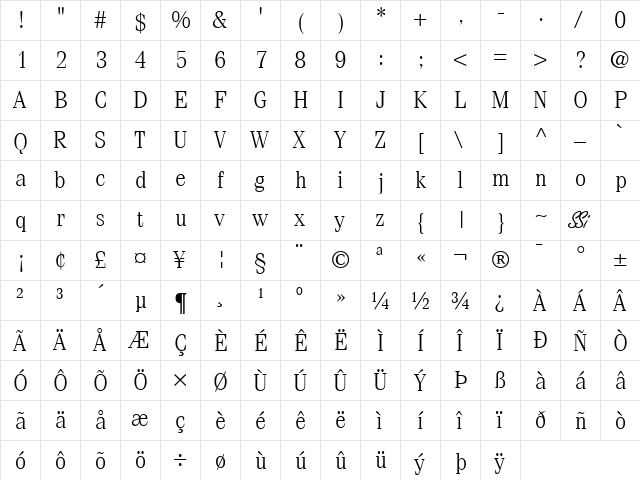
Compendium Light SSi Light
Design Context for Compendium Light SSi Typeface
Compendium Light SSi takes a measured approach to typography — its balanced proportions and neutral character make it a reliable workhorse for both digital and print work. The delicate stroke weight brings airiness and refinement to layouts.
Pro Tip: Use Compendium Light SSi in both headline and body roles to test its range before committing to a single application.